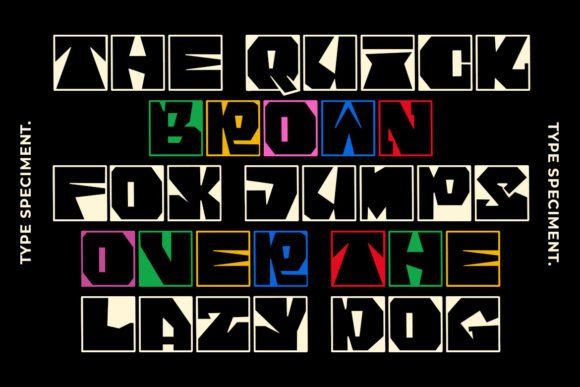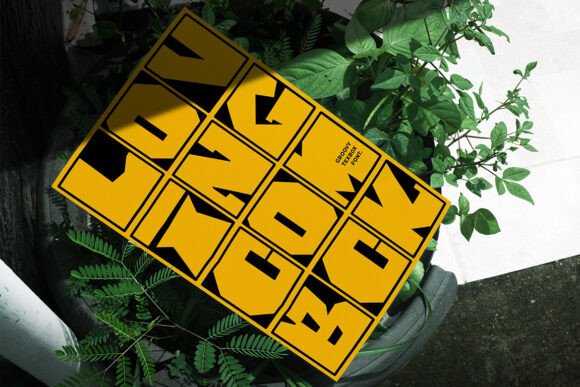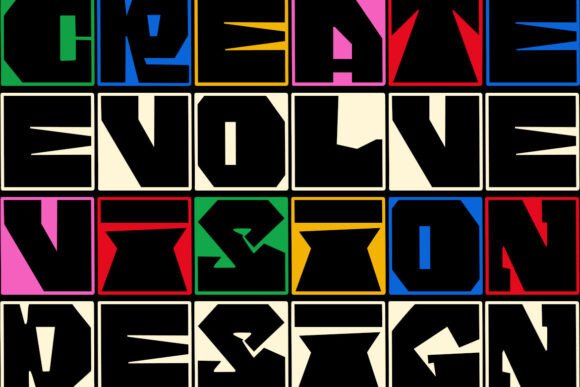
Groovy Texbox Font
About the Groovy Texbox Font
We are excited to introduce Groovy Texbox Font, a must-have typeface for any serious designer. Groovy Texbox is a bold, blocky display font with a retro style. Each letter is enclosed within a blocked box, giving it a distinctive, eye-catching appearance.
This font is perfect for creating a bold and playful retro look in posters, headlines, and other designs.
Groovy Texbox excels in large-scale applications such as posters, headlines, and branding where its bold, blocky nature commands attention. It’s ideal for projects aiming for a retro, vintage aesthetic, or a playful, energetic feel. However, its limited x-height and heavy weight make it unsuitable for body text or UI elements requiring high readability.
Consider pairing Groovy Texbox with a clean sans-serif like Helvetica Neue for a balanced contrast, or a more playful script font like Pacifico for a heightened retro vibe. For a more modern take, a geometric sans-serif such as Roboto could create a striking juxtaposition.
The font’s overall personality is bold, playful, and undeniably retro. It’s a great choice for brands targeting a younger demographic or those wishing to project a fun, energetic image. Avoid using it in contexts demanding sophistication or elegance.
Groovy Texbox Font Usage Examples
Groovy Texbox Font Example